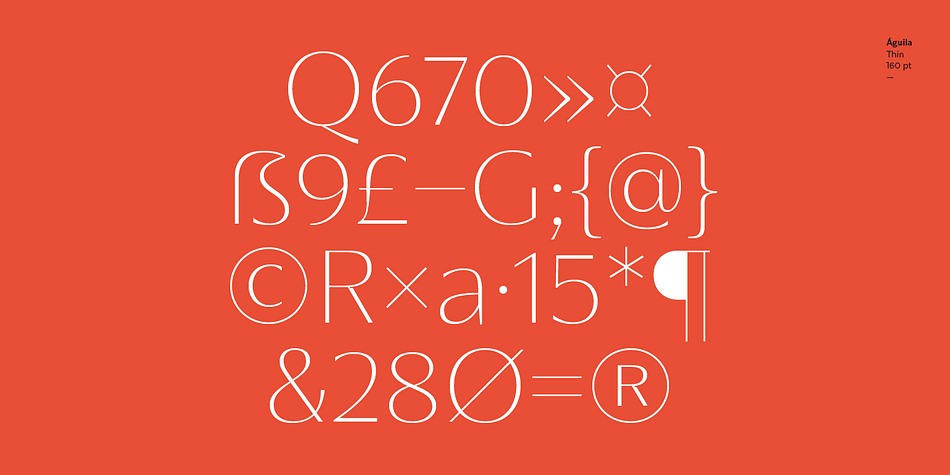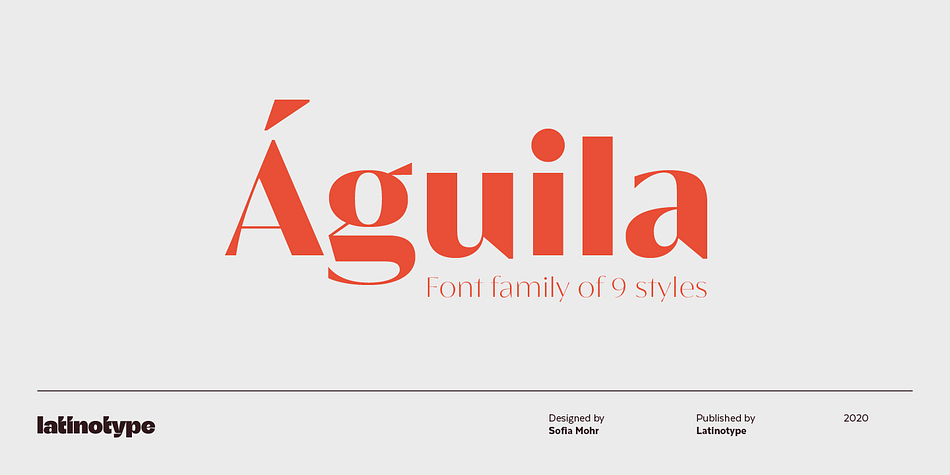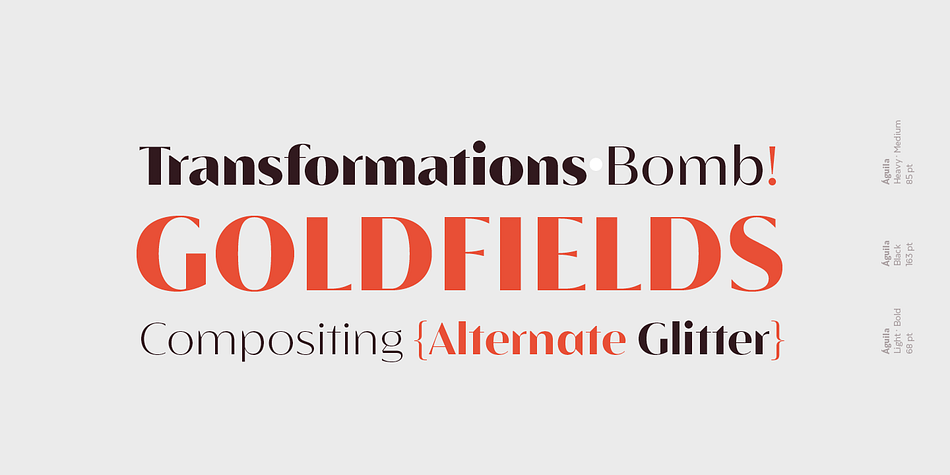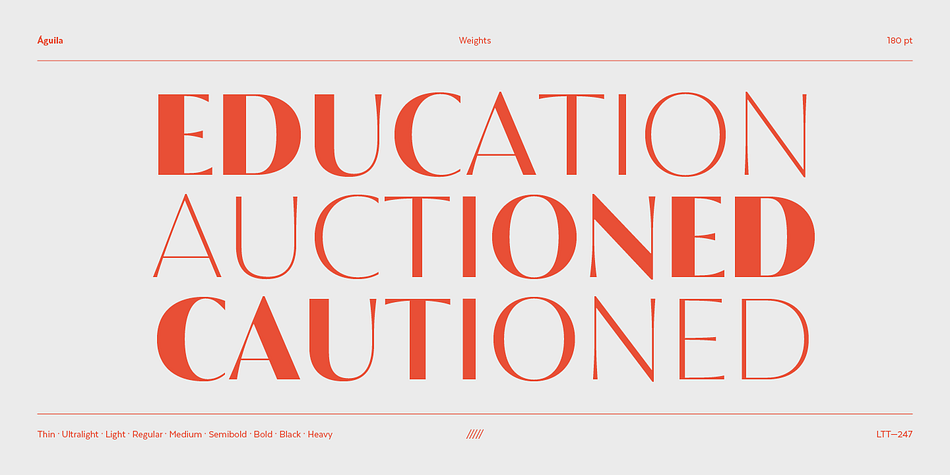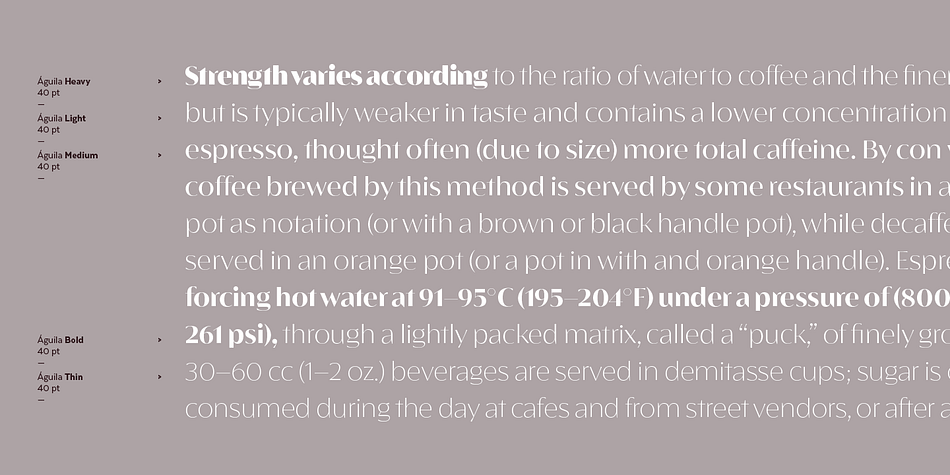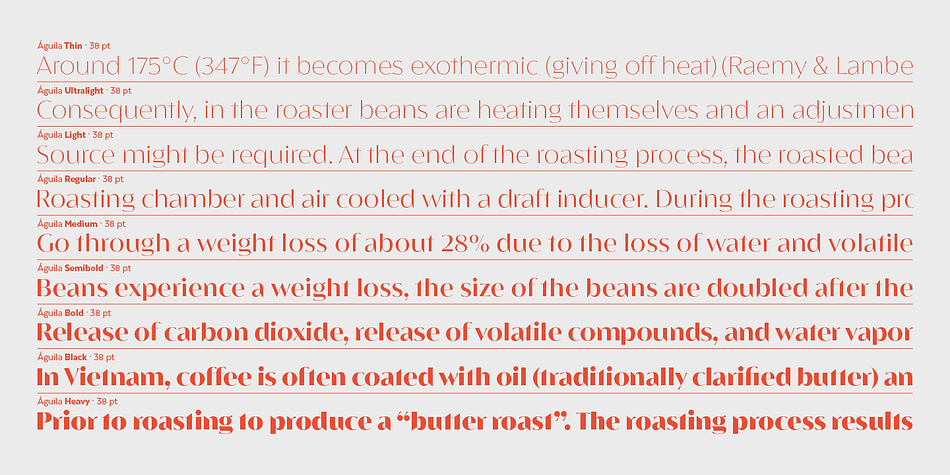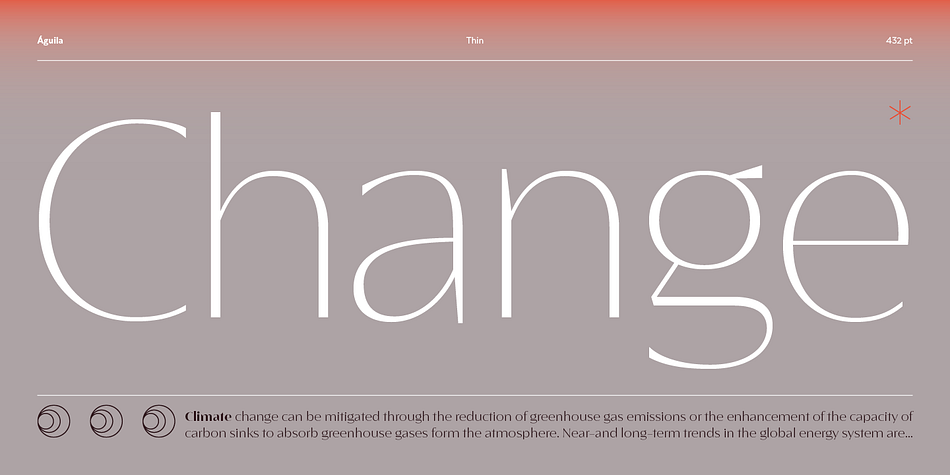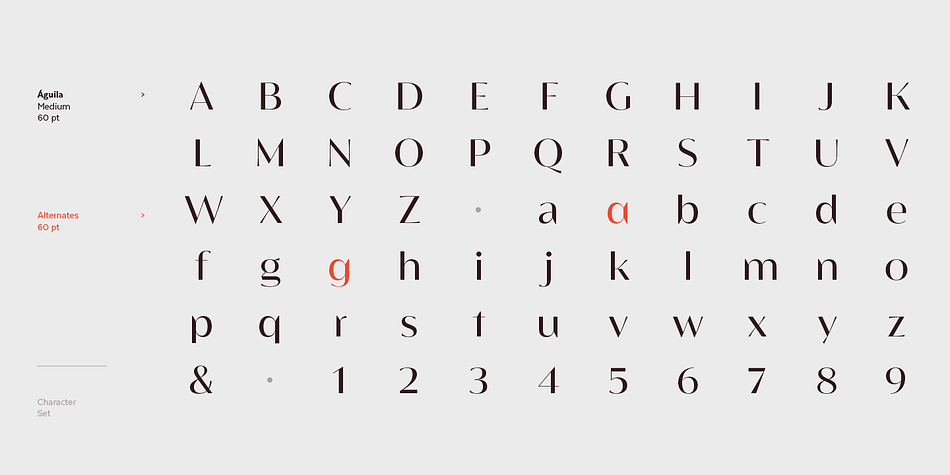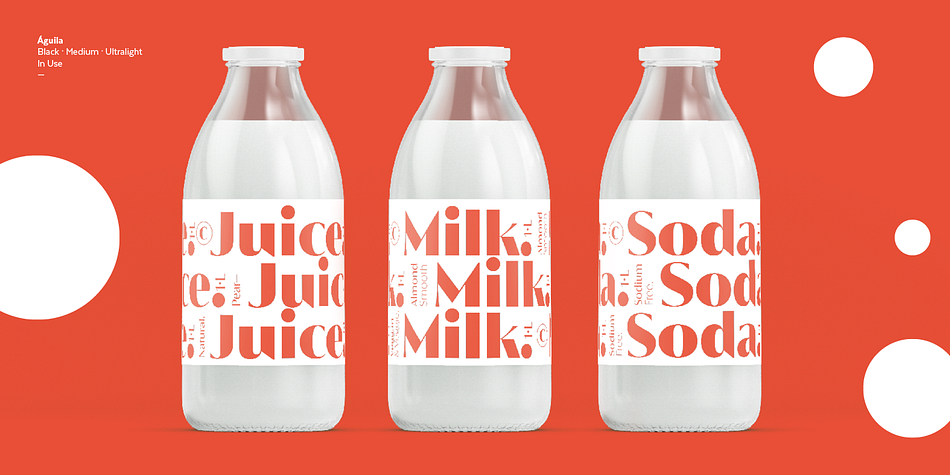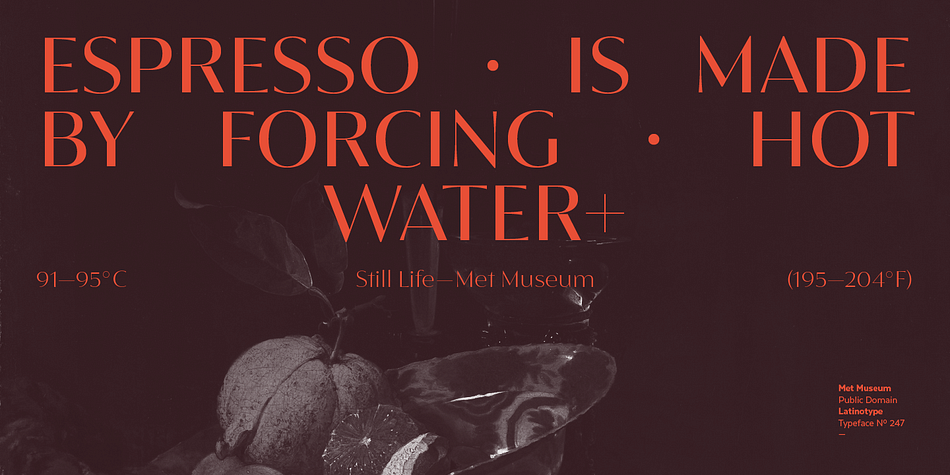
Designed by Sofia Mohr, Águila is a display sans font family. This typeface has nine styles and was published by Latinotype.
Águila design is based on the combination of straight lines, curves and triangular shapes as well as on Didone typefaces. The font also has semi serifs— a notable characteristic that gives it a singular appearance.
Águila was specially designed to be used as a display font for editorial design, packaging, branding, broadcasting purposes and for any project that requires a clean, modern font with a strong character.
Águila comes with a set of more than 400 characters that support over 200 Latin-based languages.